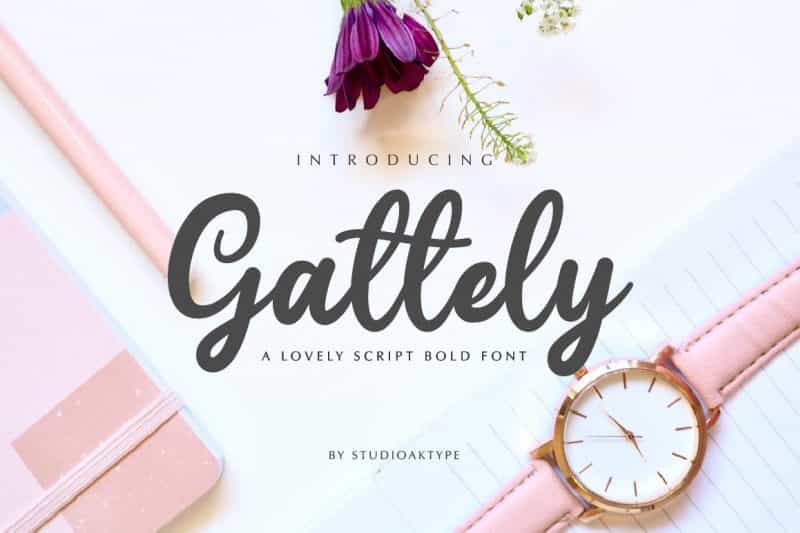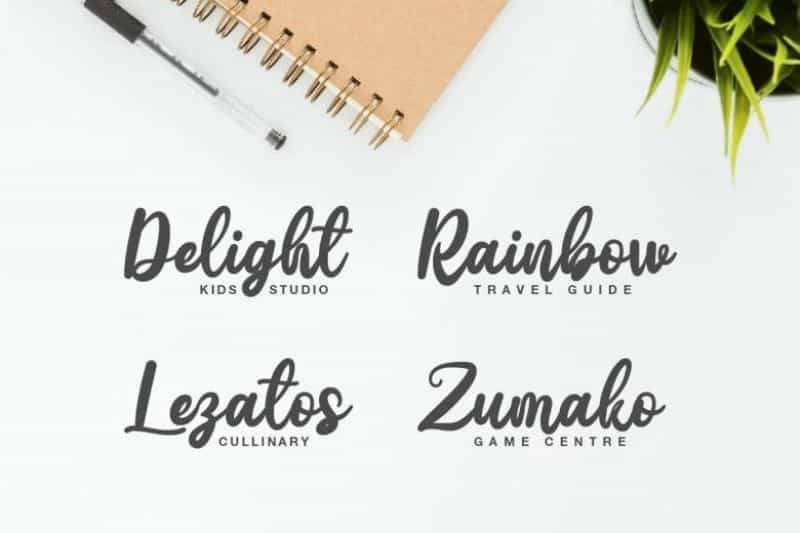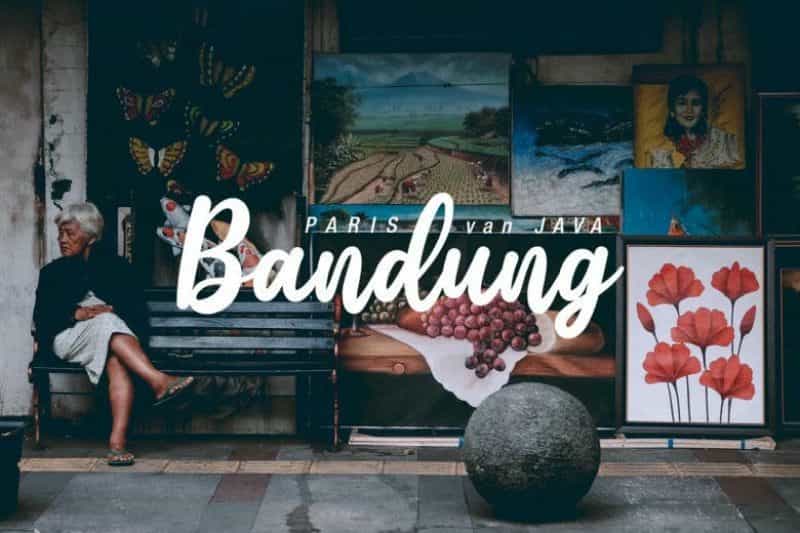
Gattely is a nice script bold font with natural shades, it will add the grace to any design you can think of!It is the best tool for creating your own brand and other designs, these letters look perfect on all printing techniques, foil embossing, embroidery etc.